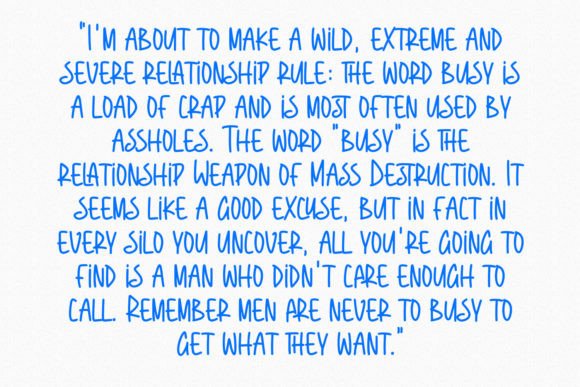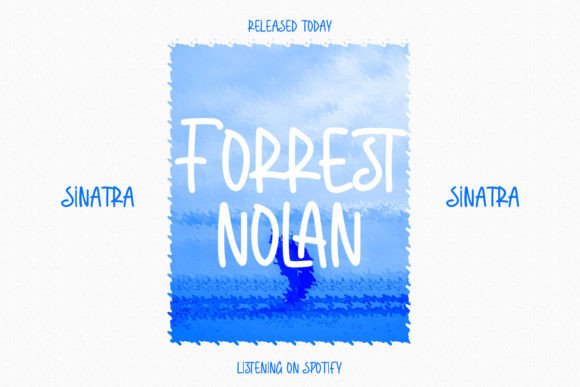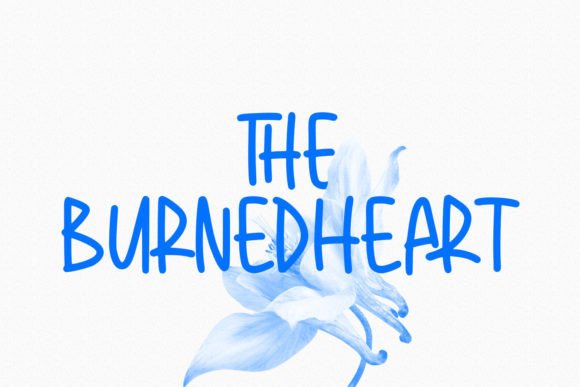
Introduction to Simplywhiz Font
As a designer, have you ever found yourself stuck in a creative rut, searching for the perfect font to elevate your next project? I know I have. There’s something about stumbling upon the perfect font that sparks an entire design concept, and I’m excited to share with you a font that’s sure to do just that – the Simplywhiz Font.
Imagine a font that’s not only visually stunning but also free to download, making it an invaluable resource for any creative project. With its transparent background and high-quality design, the Simplywhiz Font is the perfect addition to any design.
Key Features of Simplywhiz Font
- High-quality design with a transparent background, perfect for creative projects that require a clean and modern look.
- Comes in a range of sizes, from 12pt to 72pt, and is designed to be scalable for use in various design applications.
- Resolution-independent, ensuring that the font looks great at any resolution, from low-resolution screens to high-end print materials.
- Designed specifically as a design resource for creative professionals, Simplywhiz Font is ideal for use in branding, advertising, and editorial projects.
- Features a unique, modern aesthetic that is both stylish and versatile, making it a great addition to any design library.
Honest Review: Simplywhiz Font
As a designer, I’m always on the lookout for high-quality fonts to elevate my creative projects. The Simplywhiz Font caught my attention with its sleek and modern design. I downloaded it for free and was excited to see how it would perform.
- ✨ Elegant and sophisticated design that’s perfect for corporate branding and creative projects.
- ✨ Highly legible, even at smaller font sizes, making it ideal for digital use.
- ✨ The transparent background feature allows for seamless integration with custom backgrounds.
- ⚠️ Limited font styles and weights, which may not be ideal for projects that require a lot of customization.
- ⚠️ Some characters may not render correctly in certain fonts or formatting.
Overall, I’m impressed with the Simplywhiz Font’s design and functionality. While it may not be perfect, it’s a great addition to any designer’s toolkit, especially for free. I’d recommend it for any creative project that requires a touch of sophistication and elegance.
Tips for Getting the Most Out of Simplywhiz Font
To get the most out of the Simplywhiz Font, use it on a transparent background to create a modern and sleek design. Experiment with different font sizes and styles to add depth and visual interest to your project.
The Simplywhiz Font is perfect for creative projects such as logos, business cards, and social media graphics. Its high-quality design and transparent background make it an ideal choice for designers looking to create professional-looking designs.